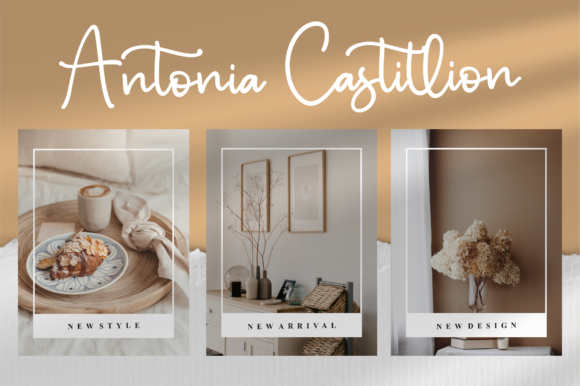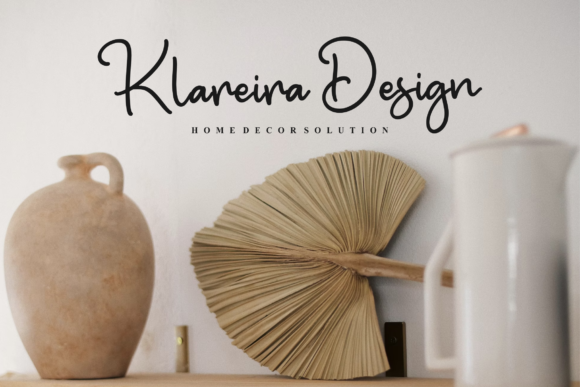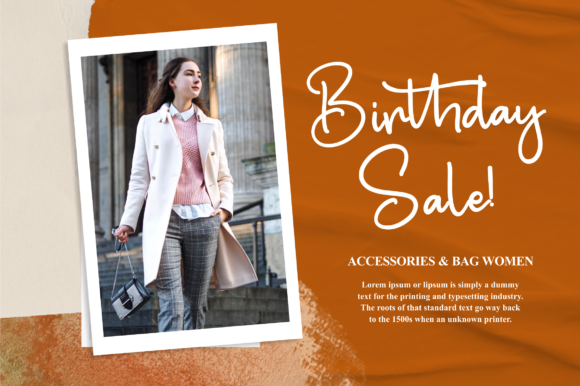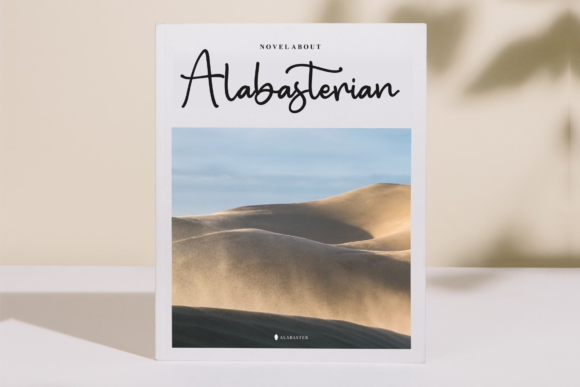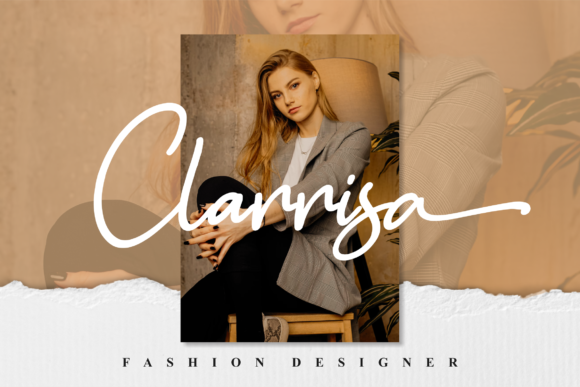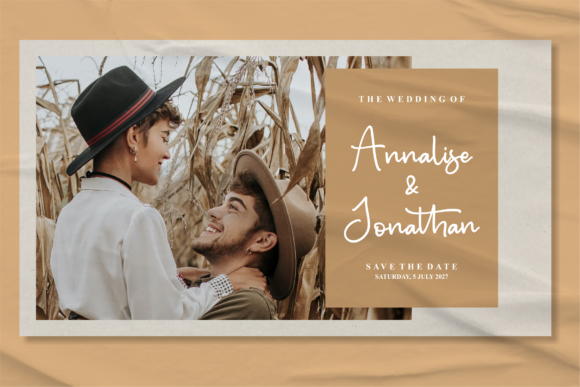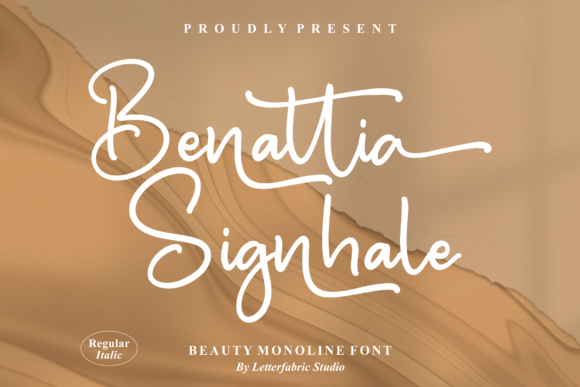
Discover the Elegance of Benattia Signhale Font
Are you a designer or crafter looking for a beautiful and elegant script font to elevate your designs? Look no further than Benattia Signhale Font. This stunning font is perfect for creating sophisticated and eye-catching designs that will leave a lasting impression.
What is Benattia Signhale Font?
Benattia Signhale is a beautiful, graceful script font that is sure to inspire your creativity. Its lovely style is perfect for a wide range of design projects, from wedding invitations and branding materials to social media graphics and more. With its elegant lines and flowing curves, Benattia Signhale is the perfect choice for anyone looking to add a touch of sophistication to their designs.
Key Features of Benattia Signhale Font
So, what makes Benattia Signhale Font so special? Here are just a few of its key features:
• PUA Encoded: Benattia Signhale is PUA (Private Use Area) encoded, which means that you can access all glyphs and swashes with ease. This makes it simple to create beautiful, intricate designs that showcase the font’s full range of features.
• Elegant Script Style: Benattia Signhale has a gorgeous, flowing script style that is perfect for creating elegant and sophisticated designs. Its lines are smooth and curved, giving it a beautiful, hand-drawn feel.
• Highly Versatile: Whether you’re working on a wedding invitation, a branding project, or a social media graphic, Benattia Signhale is the perfect choice. Its elegant style makes it suitable for a wide range of design projects.
Why Choose Benattia Signhale Font?
So, why should you choose Benattia Signhale Font for your next design project? Here are just a few reasons:
• Unique and Eye-Catching: Benattia Signhale is a unique and eye-catching font that will help your designs stand out from the crowd. Its elegant style and flowing curves make it a beautiful addition to any design.
• Easy to Use: With its PUA encoding, Benattia Signhale is easy to use and customize. You can access all glyphs and swashes with ease, making it simple to create beautiful, intricate designs.
• Perfect for Designers and Crafters: Whether you’re a professional designer or a crafter looking to create beautiful designs, Benattia Signhale is the perfect choice. Its elegant style and versatility make it suitable for a wide range of design projects.
How to Use Benattia Signhale Font
Using Benattia Signhale Font is simple. Here are just a few tips to get you started:
• Pair it with Other Fonts: Benattia Signhale looks beautiful when paired with other fonts. Try pairing it with a bold, sans-serif font for a striking contrast.
• Experiment with Swashes: With its PUA encoding, Benattia Signhale offers a range of swashes and glyphs to experiment with. Don’t be afraid to try out different combinations to create unique and beautiful designs.
• Use it for Branding: Benattia Signhale is perfect for branding projects. Its elegant style and sophistication make it a great choice for logos, business cards, and more.
In conclusion, Benattia Signhale Font is a beautiful, elegant script font that is perfect for designers and crafters looking to create sophisticated and eye-catching designs. With its PUA encoding, elegant style, and versatility, it’s the perfect choice for a wide range of design projects. So why not give it a try and see the difference it can make in your designs?
Get inspired by the lovely style of Benattia Signhale and use it to create your favorite designs. With its ease of use and range of features, you’re sure to love working with this beautiful font.